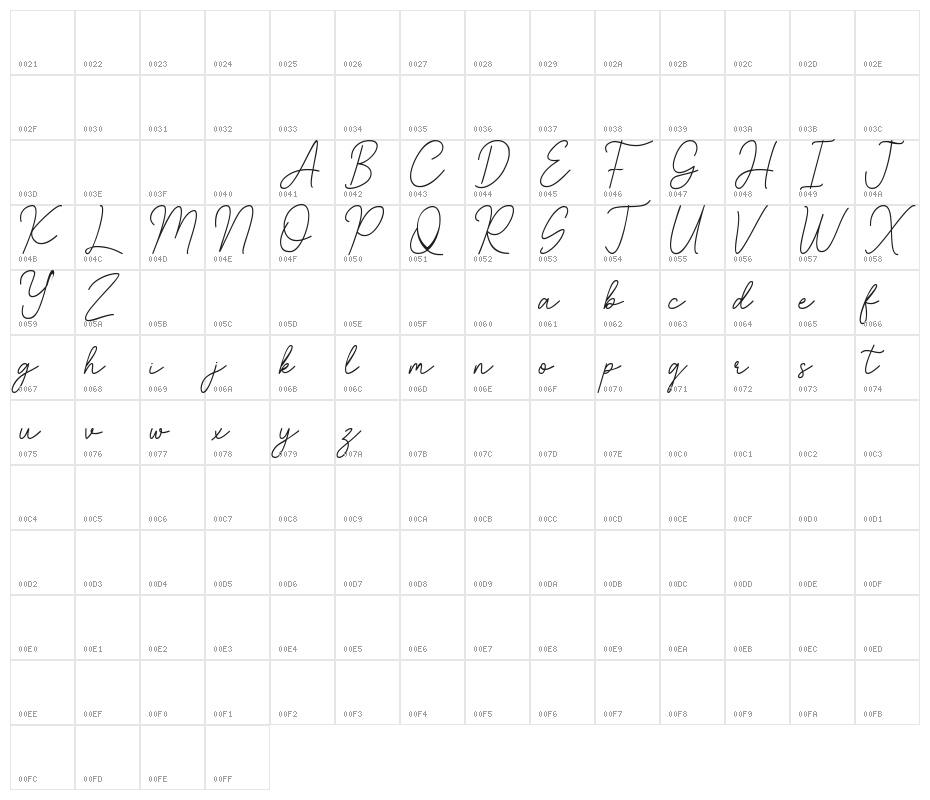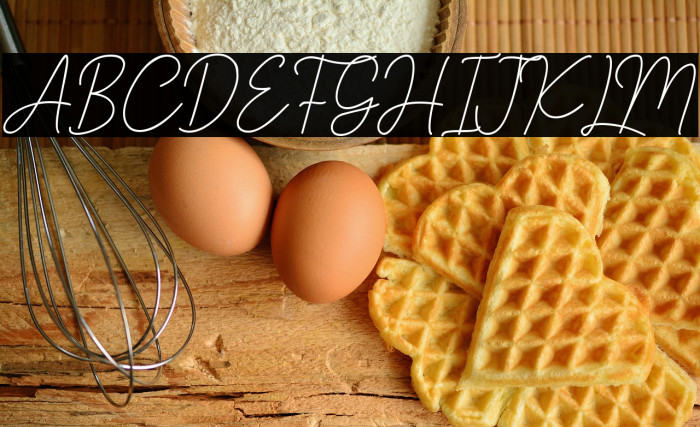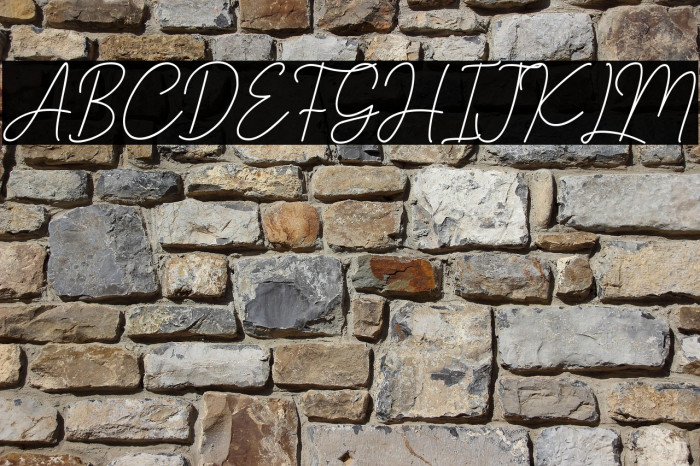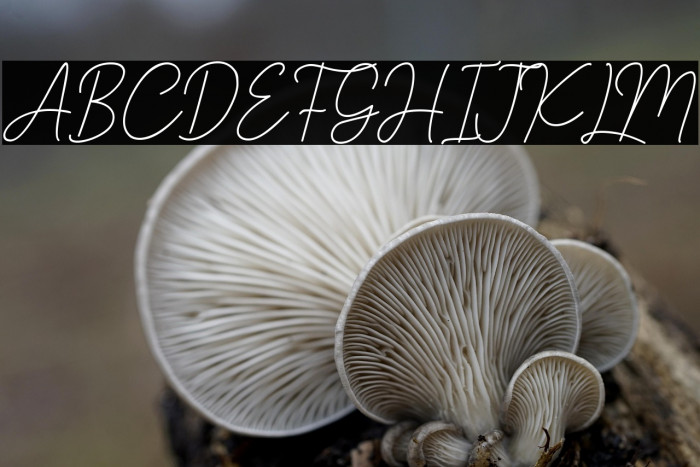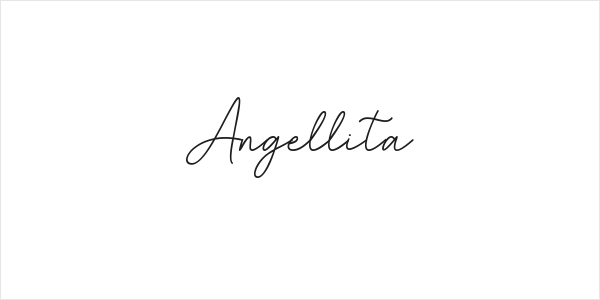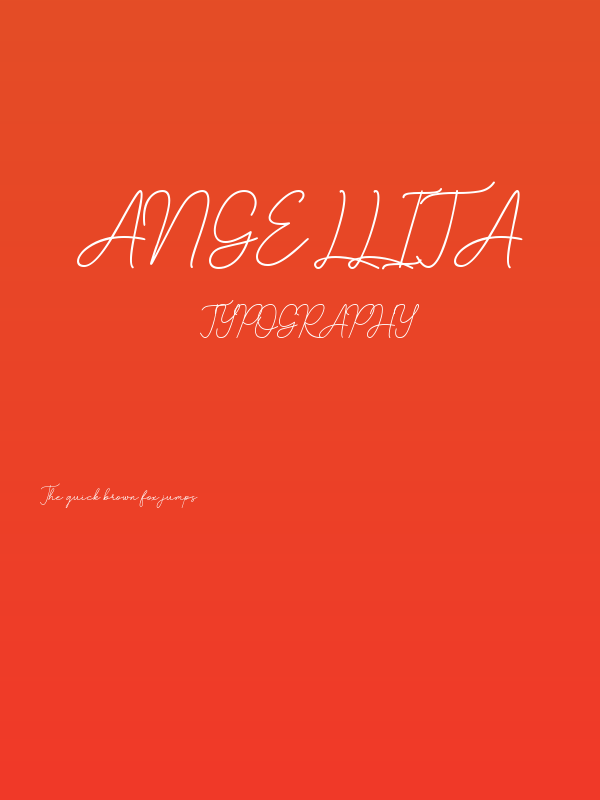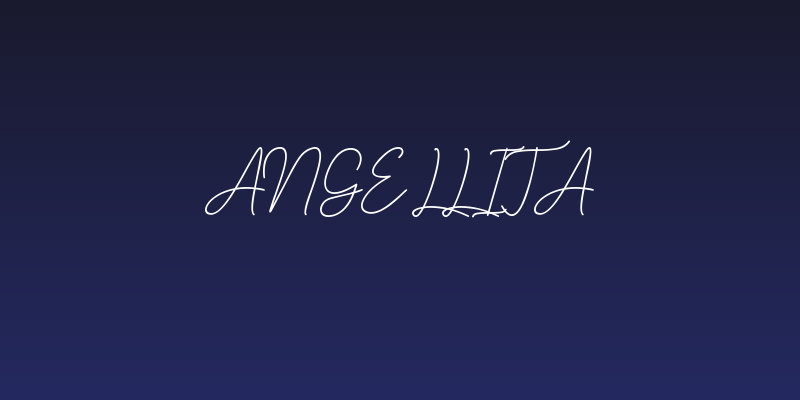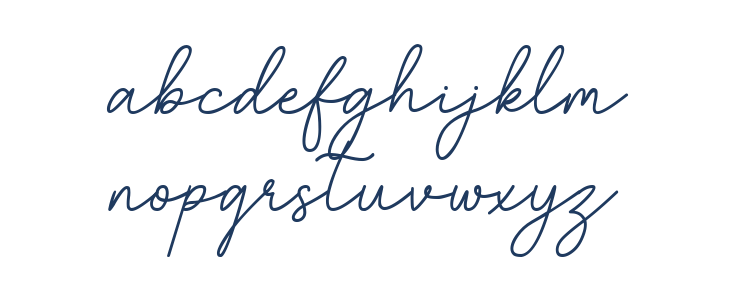
Angellita Font
Angellita Description
This font features an elegant, flowing script style that mimics the fluidity of natural handwriting. The uppercase letters are tall and slender, with graceful loops and curves that add a touch of sophistication. The lowercase letters maintain a consistent flow, with smooth connections between each character, enhancing the cursive aesthetic. The overall appearance is delicate yet confident, making it suitable for a variety of creative applications. The numerals and special characters are designed to complement the alphabet, maintaining the same elegant style. This font is perfect for projects that require a personal, handwritten touch, such as invitations, greeting cards, and branding materials.
| Overall Style | Elegant, Handwritten |
| Proposed Projects | Ideal for wedding invitations, personal branding, greeting cards, and elegant stationery. |